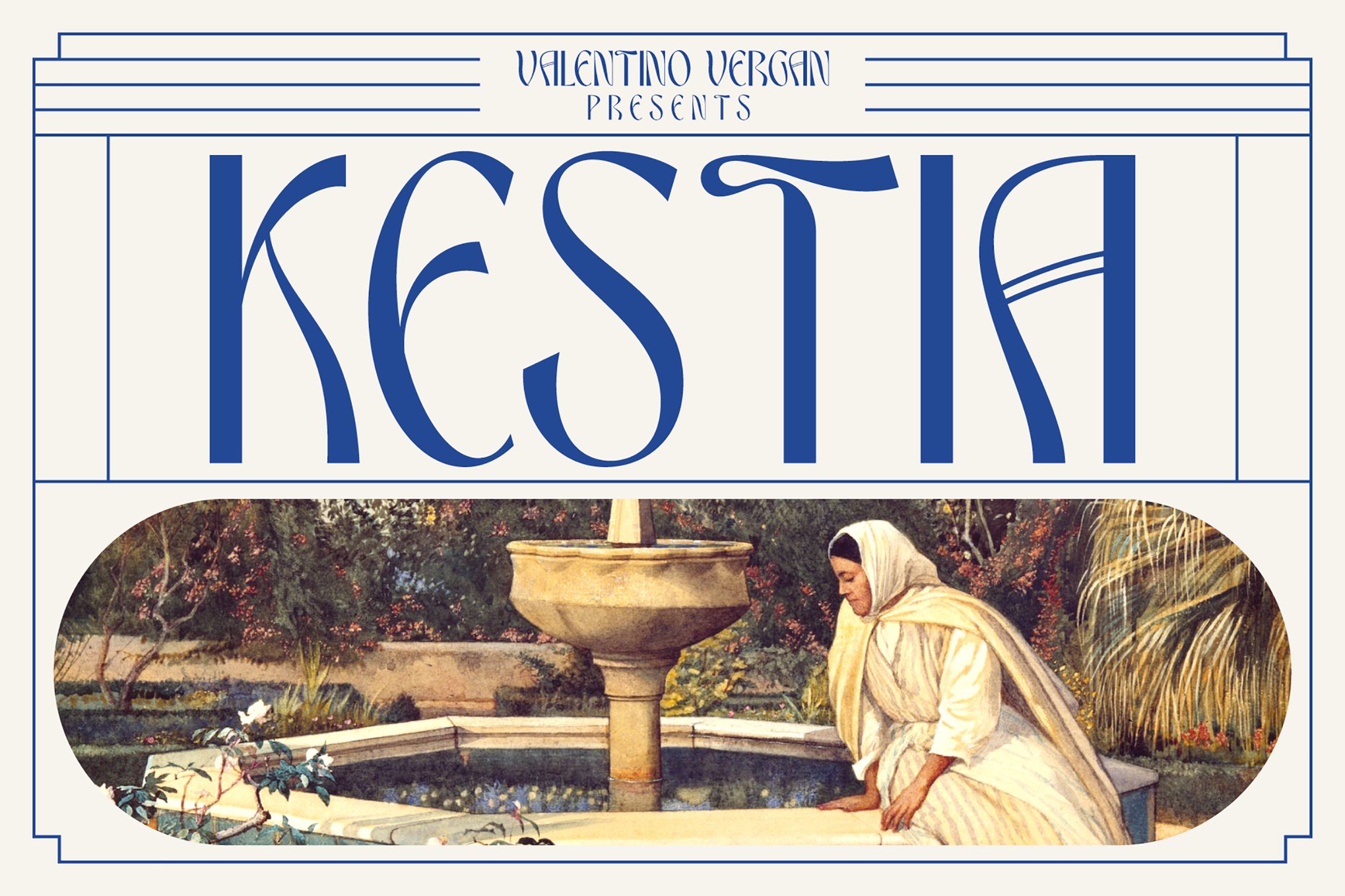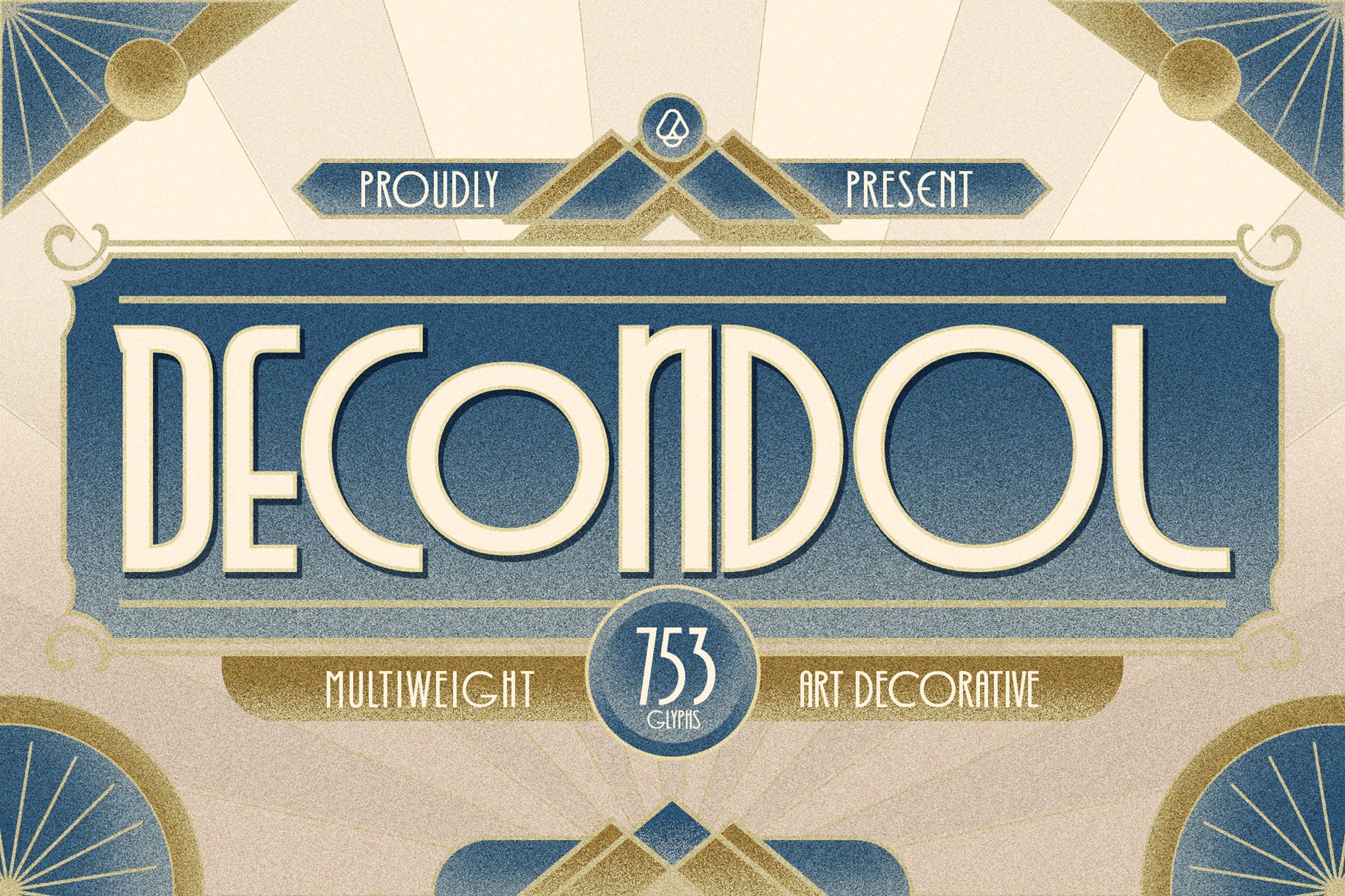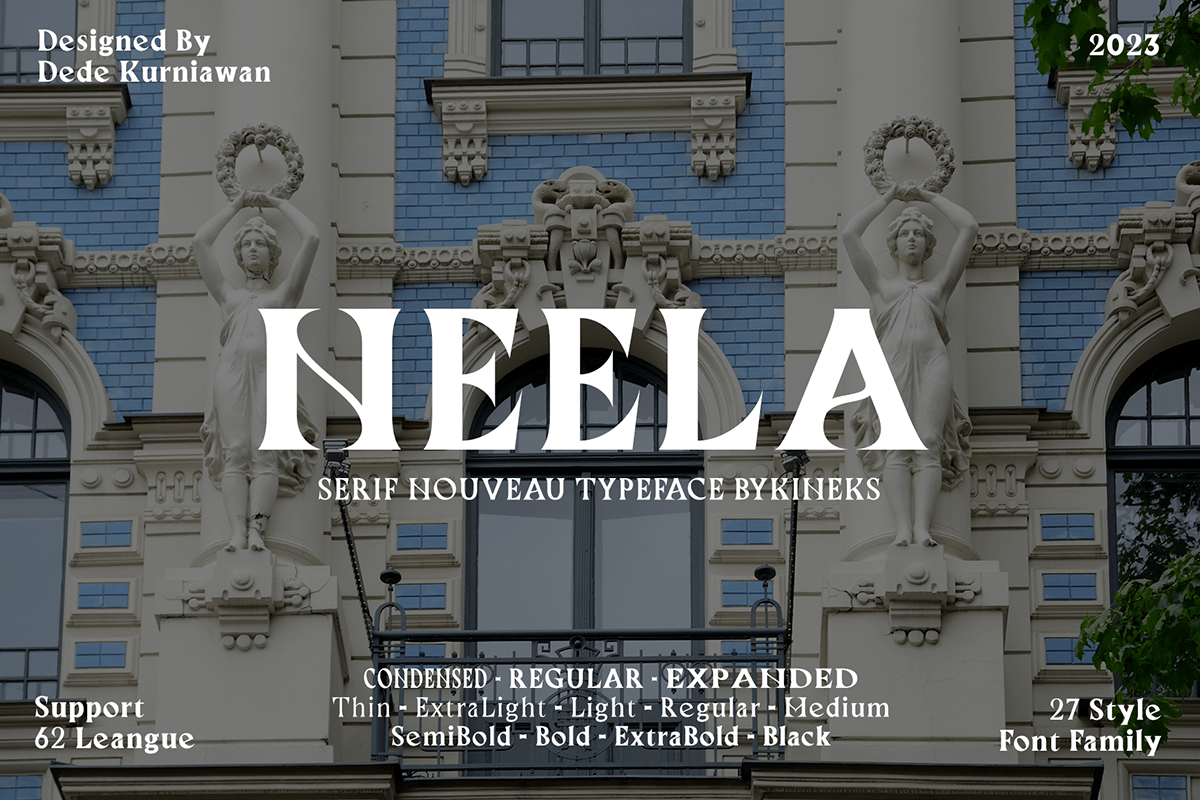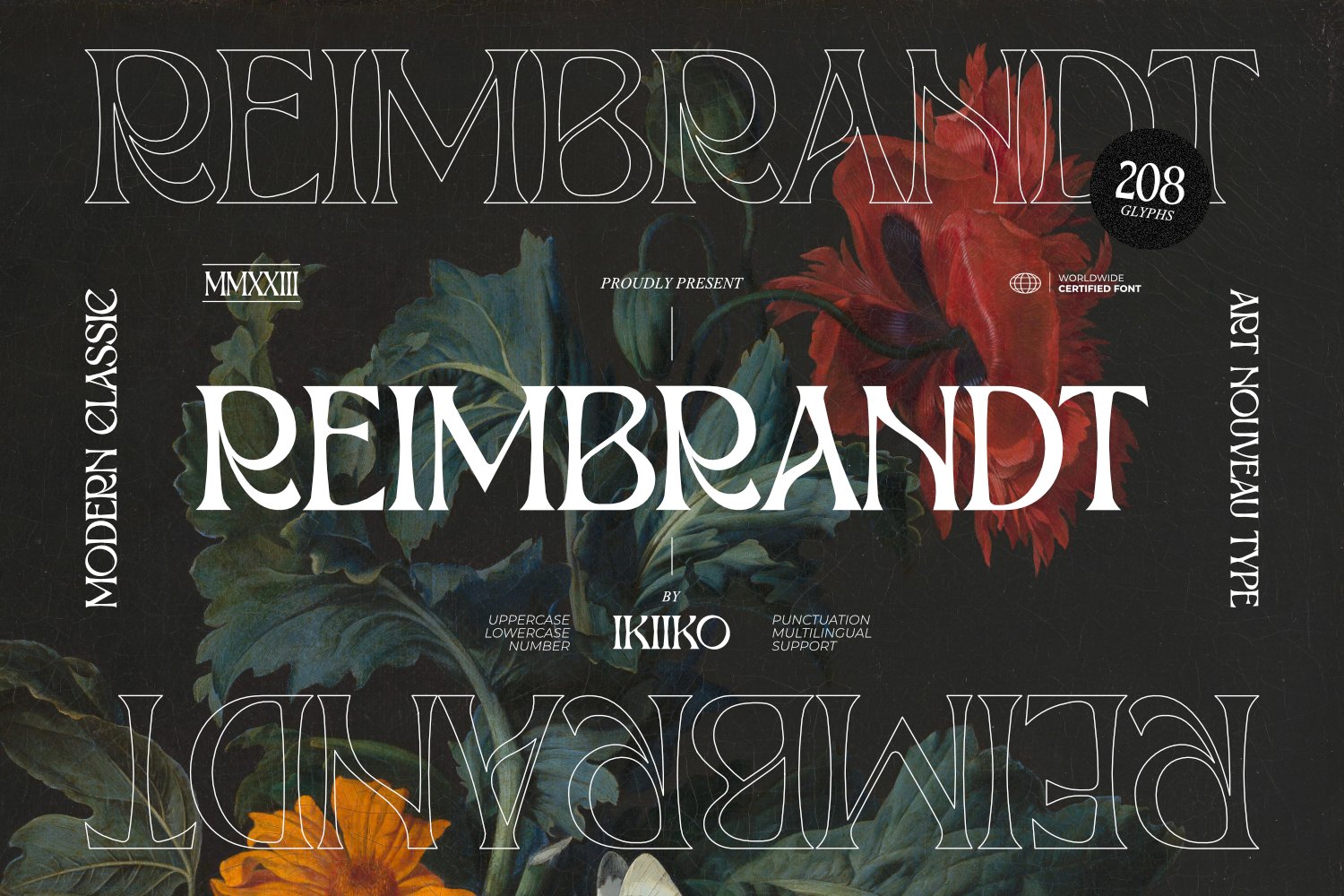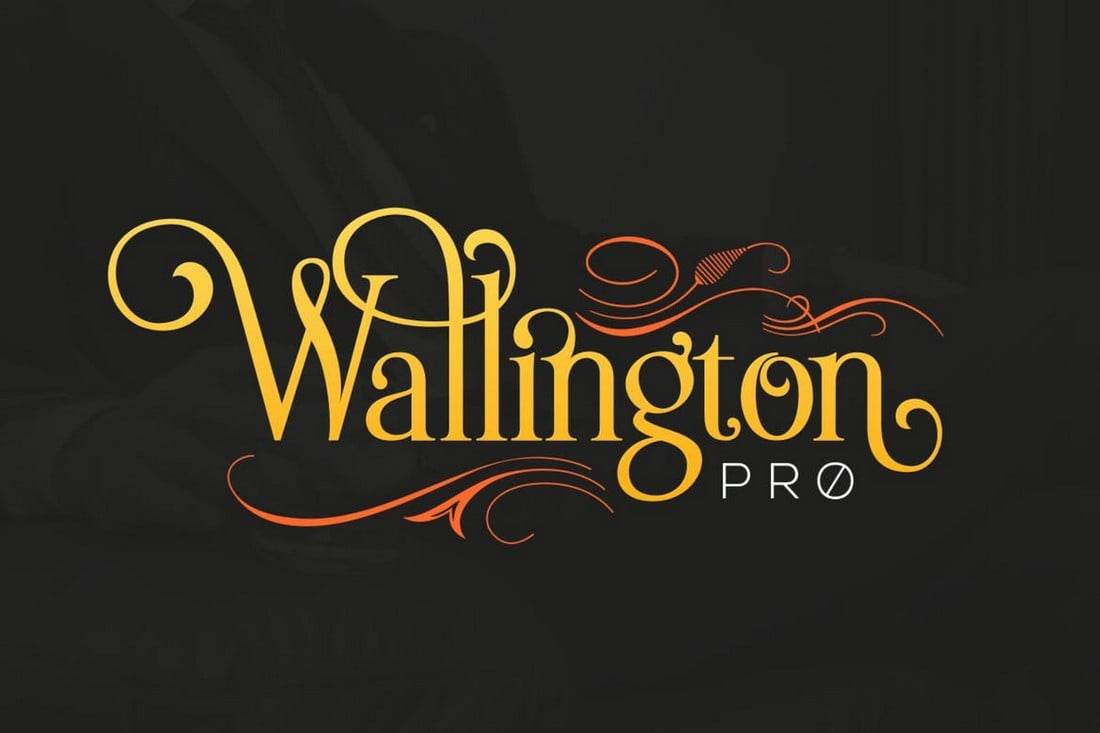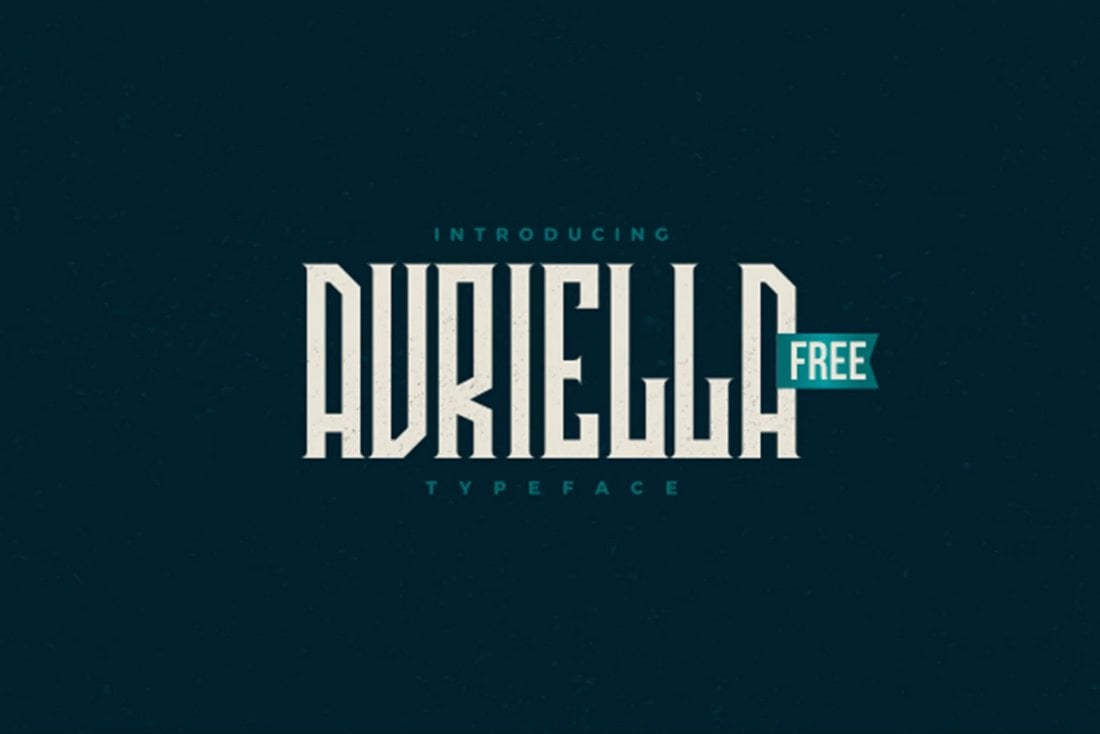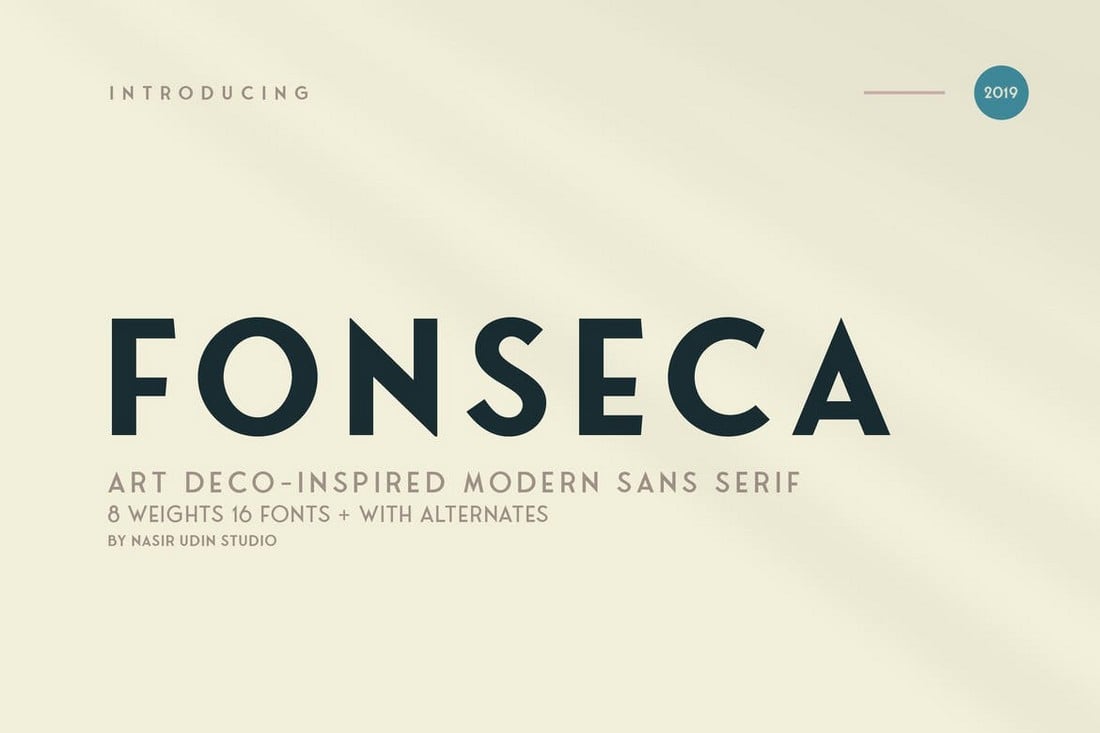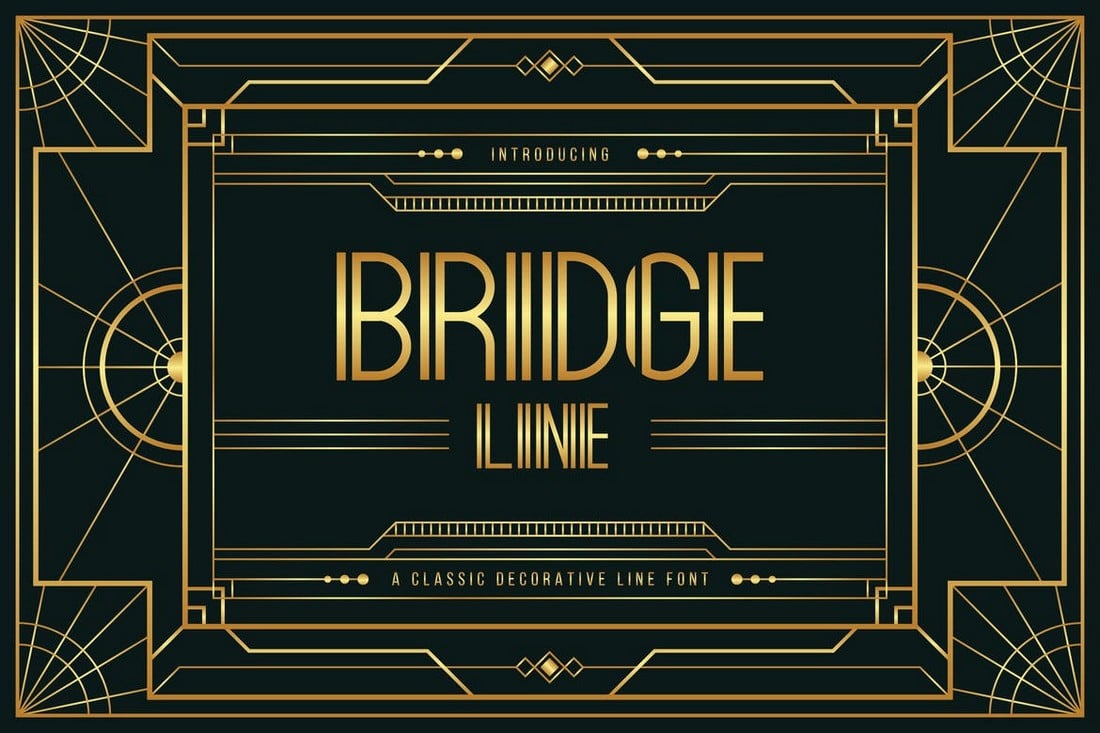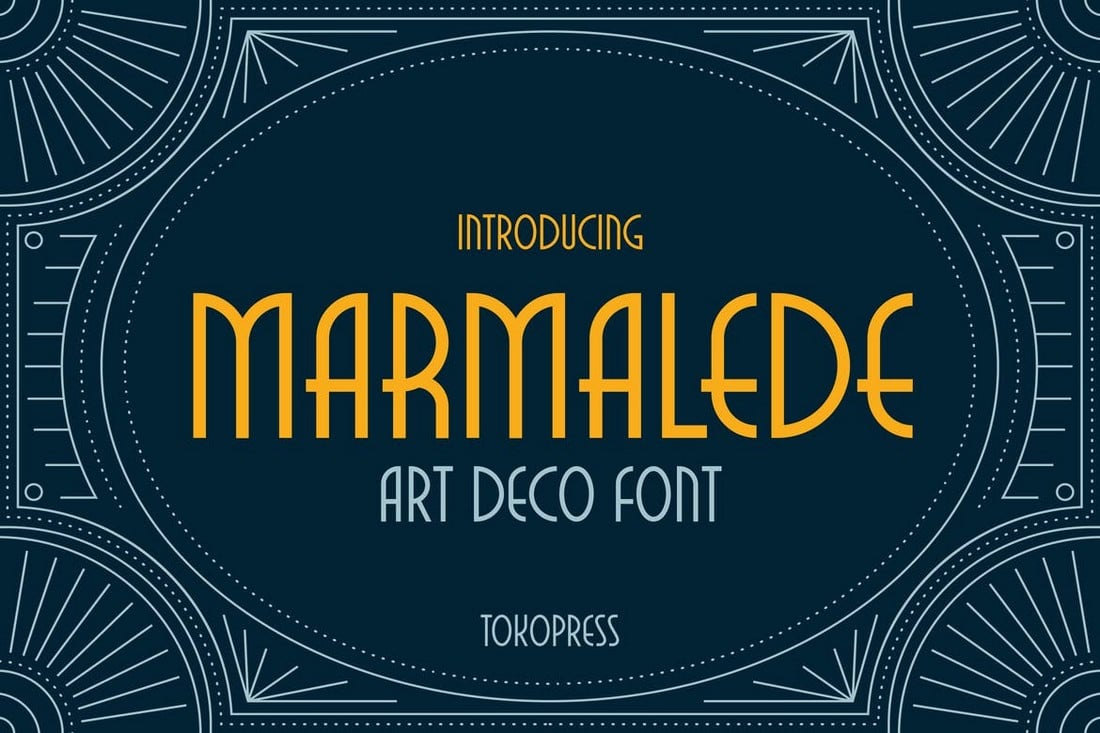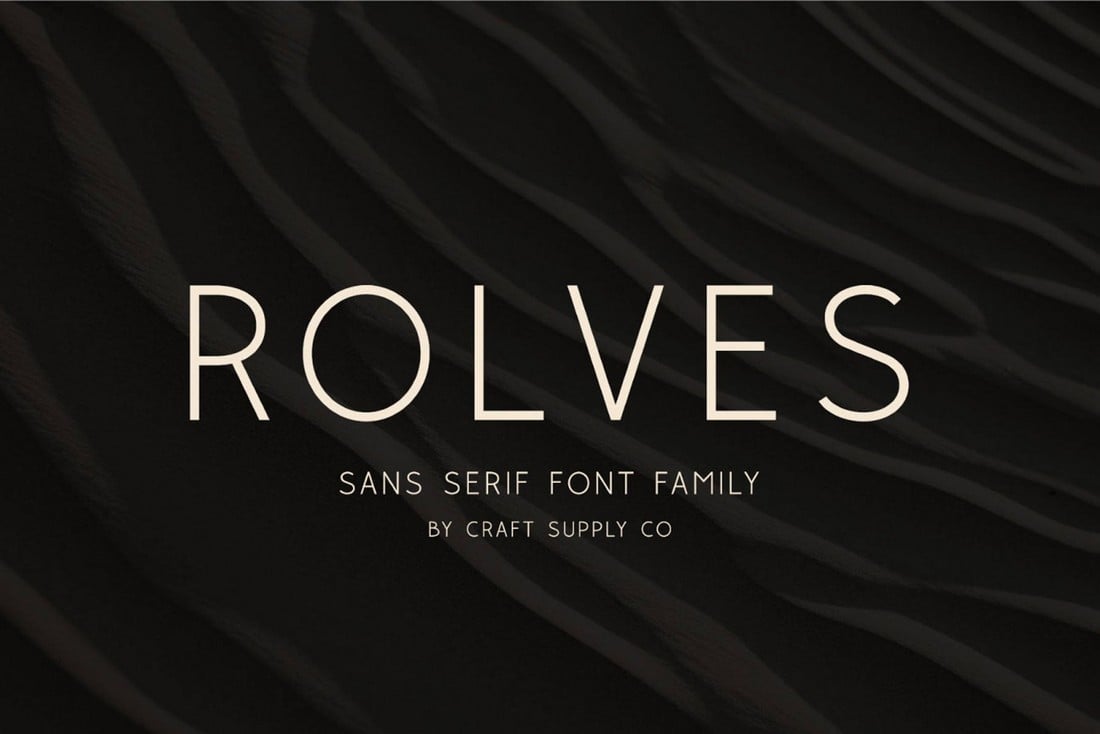
If you’re looking for a font to create a piece of timeless design, you can never go wrong with an art nouveau or art deco font.
While both art nouveau and art deco font styles come from the same 20th century period, they have two distinctive designs. Art deco is all about the clean and minimalist look while art nouveau is all about creating elegance with its long curves and lines.
These art movements are so good that they managed to survive many decades and are still celebrated among modern designers. They are especially quite popular in typography designs.
With our collection of handpicked art deco and art nouveau fonts, you can find a beautiful vintage font to craft your own Victorian-era design. Be sure to download them all.
Kestia – Art Nouveau Font
Kestia is an elegant, modern typeface inspired by early Art Nouveau design. With its creative letters, ligatures, and unique style, it’s perfect for nostalgic and retro projects like posters, logos, and wedding invitations. Available in multiple formats, Kestia includes uppercase and lowercase letters, numbers, punctuation, and multilingual symbols, enhancing your creative endeavors.
CS Forest – Art Nouveau Font
Forest is a captivating sans-serif font inspired by the elegance of Art Nouveau, featuring flowing lines and delicate curves. Perfect for elevating branding, invitations, or editorial layouts, this font adds a sophisticated and artistic charm to any project. Available in regular, italic, and reverse italic, CS Forest supports multilingual characters and includes standard punctuation.
Ornable – Ornamental Art Deco Font
Ornable is an ornamental Art Deco typeface that effortlessly blends Renaissance, Art Nouveau, Medieval, and modern influences. With its elegant lines and intricate details, it’s perfect for luxury projects, from branding to event invitations. Compatible with multiple languages and offering advanced typographic features, Ornable elevates your design with a touch of mystique and historical charm.
Decondol – Classic Art Deco Font
Decondol is a classic Art Deco font that brings a touch of vintage charm to modern designs. With five versatile weights, from light to bold, it’s perfect for anything from elegant branding to standout headlines. Its geometric shapes and smooth lines offer a sophisticated style that suits both digital and print projects, blending elegance and authority.
Neela – Serif Nouveau Font
Neela is a sophisticated Art Nouveau-inspired serif font offering 27 styles, from Thin to Black, including Condensed and Expanded widths. Its elegant design features subtle Art Nouveau touches, perfect for infusing projects with timeless charm. Supporting 65+ languages, Neela is versatile for both print and digital use, making it a valuable asset for diverse design needs.
Reimbrandt – Art Nouveau Font
Reimbrandt captures the timeless romance of the past through elegant, decorative shapes inspired by the Art Nouveau era. Ideal for vintage themes, it enhances poster layouts, packaging, book covers, and more with stylish flair. The font includes uppercase, lowercase, numbers, punctuation, and multilingual support, available in TTF and OTF formats.
Decofun – Stylish Art Deco Font
Decofun is a striking modern Art Deco font. It carefully combines a touch of timeless elegance with dynamic, creative design. Ideal for bold headlines, stylish logos and sophisticated invitations, Decofun offers over 700 characters and alternate styles, elegant ligatures and special unicode access.
Decolmax – Art Deco Font
Decolmax is an eloquent typeface inspired by the 1920s Art Deco movement, merging geometric precision with ornamental flair. Its distinctive style includes bold lines, sharp angles, and graceful curves making it perfect for branding, packaging, and headlines. This versatile font offers 835 characters and artistic features—like alternative characters, custom ligatures,and more.
Decobra – Elegant Art Deco Font
Decobra is an Art Deco typeface that possesses a unique blend of classic elegance and modern sophistication, ideal for infusing a vintage yet contemporary feel into your designs. With its distinctive two-line structure, over 800 characters, stylistic sets, ligatures, and decorative swashes, it proffers a world of creative potential.
Dechora Zone – Art Deco Font
Dechora is a fresh take on Art Deco, offering a mix of vintage allure and modern sophistication. The font’s dynamic lines give it a unique look that’s well-suited for a range of projects, from luxury branding to editorial layouts. Offering an expansive character set, multiple stylistic options, and comprehensive language coverage.
Decola – Art Deco Font
This font captures the elegance and vintage allure of the Art Deco era. Boasting a unique 2-line frame that lends sophistication, it’s great for contemporary designs creating an air of timeless luxury. Featuring 710 characters, alternative glyphs, lingatures, swashes, and multilingual support.
Lovnie – Modern Art Deco Font
Lovnie is an Art Deco-style font with a modern twist. Sleek and geometric, it adds vintage elegance to any project, from magazine layouts to restaurant branding. Versatile and stylish, it’s perfect for designs needing a touch of glamour and sophistication. Lovnie font comes in both regular and italic typefaces supporting uppercase, lowercase, numerals, punctuation, and multilingual characters.
Revalyn – Art Noveau Font
The Revalyn merges contemporary elegance with a nostalgic twist. Blending modern sophistication with elements of retro design, this font is influenced by the flowing lines and organic shapes that define Art Nouveau. Ideal for a variety of projects, it adds a touch of finesse and versatility. It comes in both regular and italic variations, supporting multilingual characters, numerals, and punctuation.
Varelle – Elegant Art Nouveau Font
Varelle is an Art Nouveau style, elegant serif font, ideal for sophisticated designs. It combines exquisite detailing with graceful lines to offer a timeless appeal. Whether utilized for luxury invitations, upscale branding, or eye-catching logos, Varelle’s adaptable design works effectively in a range of sizes.
Merivale – Art Nouveau Font
Merivale is a strikingly beautiful blend of elegance and tradition. Drawing inspiration from the Art Nouveau movement, it features flowing lines and intricate flourishes, lending a tasteful sophistication to any design. Ideal for captivating headlines and eye-catching displays, it offers versatility in usage whilst maintaining its timeless appeal.
Olyphs – Luxury Art Deco Font
Olyphs is a luxury Art Deco font inspired by the grandeur of the silver screen. Olyphs is not just a font, but a representation of timeless elegance, perfect for projects requiring a touch of vintage charm or Old Hollywood glamour. Its intricately detailed letters combine seamlessly with both print and digital mediums, making it a highly versatile tool for design enthusiasts.
Venio 3D – Classic Art Deco Font
Venio 3D is a classic Art Deco font that breathes new life into the style from the Roaring Twenties, with its sleek lines and geometric shapes. Boasting stunning 3D effects, it ensures a visually impactful experience with depth and vitality, perfect for attention-grabbing display purposes on signage, posters, or digital graphics.
Nerilla – Art Nouveau Font
Nerilla is an Art Nouveau-style serif font that embodies beauty and elegance. Drawing inspiration from organic forms and fine details of the Art Nouveau movement, it provides a sophisticated and timeless charm. Devised with delicate serifs and complex details, this font showcases refinement.
Lucilo – Beautiful Art Noveau Font
Lucilo is an Art Noveau-inspired font with the grace and intricacy of this timeless style. Displaying elegance and beauty, it instantly adds a refined aesthetic to any design project, from wedding invites and luxury logos to sophisticated editorial layouts. Lucilo Font comes in both regular and italic, supporting uppercase and lowercase characters, numerals, punctuation, and multilingual characters.
Bourgie Deco – Art Deco Font
Explore the charm of the early 20th century with Bourgie Deco – a uniquely modern Art Deco font created by Rasiorise Studio. Drawing inspiration from the architecture and visual styles of the 1910s, this font is a fusion of uppercase and lowercase characters which exudes a bold and unique contemporary appeal.
Golften – Art Noveau Serif
Golften is an elegant and harmonious font, perfect for anyone seeking a refined and graceful design. Its versatile beauty works for a range of projects, whether wedding invitations or artistic posters. Inspired by the Art Nouveau movement, Golften captures the timeless appeal of this style, adding a captivating visual experience to your work.
Wallington Pro – Elegant Art Nouveau Font
Wallington Pro is a stylish and elegant font that checks all the boxes of a perfect art nouveau font. It has a bold serif lettering design, long curvy lines, and an overall bold look that can’t be matched by any other type of font. Its design is inspired by the late 19th-century Old English culture. And it comes with 10 stylistic sets and hundreds of ligatures and glyphs.
Ager – Art Nouveau Logo Font
When it comes to designing logos for luxury, lifestyle, and fashion brands, you can’t go wrong with an art nouveau font. This font in particular has the perfect letter design for crafting logos for high-end brands. It includes uppercase and lowercase letters as well.
Rosaline – Art Deco Display Font
Rosaline is a beautiful outline font with a classic art deco-inspired design. This font features an iconic and elegant look that will make your professional and branding designs look out of this world. It looks amazing when designed with a black and gold color scheme.
Avoner – Elegant Art Deco Fonts
Avoner is a bold art deco font with thick letters. This font is excellent for designing big titles and headings for posters, flyers, and websites. The design of this font is inspired by the typography used in the 1930s.
Modecque – Classic Art Deco Fonts
If you’re a fan of classic Victorian-era art deco designs, this font is perfect for your projects. It features a very unique design with creative decorative elements. The font will surely make your designs stand out.
Avriella – Free Art Deco Font
This free art deco font comes with a clean letter design. It also features condensed characters that make it most suitable for crafting typography for posters and social media posts. It’s free for personal use.
Voltdeco – Stylish Art Deco Font
At first glance, this font looks quite incredible for designing business cards, logos, labels, and other branding designs. It has a beautiful and narrow letter design that will fit in nicely with both modern and vintage-themed designs. It includes all-caps letters.
Peachy Fantasy – Art Nouveau Font
This is a creative art nouveau font with a psychedelic look and feel. This font also gives off a subtle fantasy vibe, which makes it suitable for book covers, magazines, posters, and so much more.
Cartinz – Modern Art Deco Font
Cartinz is a unique art deco font with a modern design. This font will allow you to use art deco typography in a different way than traditional designs. It’s perfect for modern branding designs, promo materials, and even product labels.
Naroline – Creative Art Nouveau Font
A beautiful art nouveau font with a creative letter design. This font features a mix of both modern and classic design elements to give each letter a unique feel. It has uppercase and lowercase letters too.
Lost Cord – Free Art Deco Font
Looking for a serif font with an art deco design? Then this free font is for you. It comes with a decorative letter design with lots of glyphs and alternate characters. The font is free to use with personal projects.
Decohead – Minimal Art Deco Font
Similar to art nouveau fonts, art deco fonts share the same elegant look and feel. Except art deco is all about creating a clean look while maintaining elegance. This font is a great example of an art deco font. It comes in 3 different font weights with the same stylish letter design.
Fonseca – Art Deco Font Family
Fonseca is a family of beautiful art deco fonts. It includes eight different font weights and oblique versions of each weight, making it a total of 16 fonts. Every font in this pack shares the same art deco font style. You can actually use it for everything from designing titles to headings and even paragraphs.
Bagerich – Stylish Art Nouveau Font
Bagerich is a classy font that features a stylish design that you’d normally see in high-end brandings such as Gucci or Victoria’s Secret. This font comes with art nouveau-style letters along with lots of alternate characters, ligatures, and stylistic characters to help you craft amazing logos, labels, and more.
Onamura – Experimental Art Nouveau Font
Onamura is a unique experimental font that’s been designed by mixing a few different art styles. It shares different elements from the art nouveau movement as well as art from the Gothic era. This gives a unique look to each letter in this font. And it’s perfect for modern designs that instantly grab attention.
Catallina – Free Art Deco Font
This clean and minimal art deco font is actually free to use with your personal and commercial projects. And it has a set of unique characters with the same elegance of a premium font.
Rousseau Deco – Free Display Font
Another free art deco font with a professional letter design. It includes stylistic alternates, multilingual support, and a stylish retro design. Everything is offered to you completely free of charge.
AVENIDA – Stylish Art Deco Font
Avenida is one of the most stylish fonts on our list. While it’s inspired by the art deco theme, it has additional stylistic elements to give a unique look to each letter. This makes this font a great choice for crafting logos, product labels, and various other branding designs. It includes uppercase and lowercase letters.
Fontaine – Narrow Art Deco Font
A tall and narrow font with only all-caps letters? Then it must be a title font. Fontaine is a bold art deco font that’s been made just for crafting titles, headings, and text that attracts attention. The font includes a set of alternate characters that you can toggle with the capslock as well.
Garine – Art Deco Display Fonts Trio
This font mixes modern typography designs with art deco style to create a very beautiful and feminine font. It’s actually perfect for magazine cover design, branding design for feminine brands such as cosmetics, and even luxury fashion brands.
Murray – Art Deco Display Font
Murray is another art deco font that comes with a simple letter design with a subtle nod to the 20th century. The font looks quite elegant on greeting cards and wedding invitation designs. It comes with both uppercase and lowercase letters.
Gatsby – Creative ArtDeco Fonts
The novel The Great Gatsby by F. Scott Fitzgerald has some of the best descriptions of the art deco movement. This was later visualized in the 2013 movie based on the novel. This font design is inspired by that same work of art. And it comes in 5 different styles, including grunge, inline, and outline versions.
Guyon Gazebo – Free Art Nouveau Font
This is a unique font that features both modern and art nouveau-style design elements. The font is especially suitable for fashion branding, logo design, and label designs. You can use it for free with your personal projects.
Macropolo – Free Art Deco Font
A free art deco font with a classic vintage letter design. It’s an all-caps font that features extensive multilingual support. And it’s free to use with all your personal projects and designs.
Charlie – Modern Art Deco Font
This font features a modern take on the art deco font design and it does a pretty good job at it. The font features elegant and clean letters that will look great on any modern branding design. It’s suitable for everything from product labels to T-shirt designs, logos, and much more.
Elodie – Hand Sketched Art Nouveau Font
This font is definitely not the usual art nouveau font you’re used to seeing. It actually combines several design styles to create a unique set of letters. The font is handcrafted with a brush pen, making the letters and the font completely unique. While it breaks away from the traditional art nouveau style, the font is a great choice for crafting designs with a personality.
Bridge Line – Elegant Art Deco Font
Bridge Line is an elegant art deco font that features the same classic design from vintage posters and signage. This font includes both uppercase and lowercase letters to help you craft titles as well as smaller paragraphs in style.
Marmalede – Classic Art Deco font
Marmalede is another classic art deco font you can use for creative and branding designs. It comes with a set of letters featuring clean-cut corners and with a high-end look and feel. It comes in regular and italic styles as well.
Billionaire – Art Deco Display Font
A collection of vintage display fonts featuring art deco-style letter designs. This pack includes 6 fonts featuring grunge style typefaces. It includes 3 weights ranging from regular to thin and medium. Each font is suitable for various types of design projects.
Grodna – Free Art Nouveau Font
Grodna is a free art nouveau font that comes with a unique set of letters. The narrow lettering style makes this font perfect for crafting titles for posters and labels. The font takes inspiration from the posters seen in the 1900s in Oradea.
Rolves – Free Art Deco Font
This clean and stylish art deco font is also free to use with your personal projects. Rolves is a high-quality font that will look perfect on business cards, logos, and other branding designs.
Ironclad – Bold Art Deco Font
If you’re looking for a bold and creative art deco font to craft an attractive title for a movie poster or a book cover, this font is perfect for you. It comes in 3 font weights with a set of clean letter designs.
Brigmore – Unique Art Deco Font
This font will make your designs immediately noticeable no matter where you use it. There’s a certain classy and rugged look to this font that separates it from the rest. The all-caps font comes in 3 font weights and two distinctive styles as well.
Art Deco Monogram Font
Art deco typography is a common choice in monogram logo and signage designs. This font is made specifically for that type of design work. It features letters that you can easily combine together to create monograms. The font is available in 3 weights with uppercase and lowercase letters.
Avenida – Art Deco Font
Taking an art deco look, Avendia is all about classic, elegance, and high-class feel all over it. Suit perfectly for high-end market audiences, poster, movie title, classic restaurant/ cafe menu, magazine, youtube covers, youtube thumbnails, social media page covers and so on.
Indentia – Art Deco Font
Indentia is a very interesting font, which has been inspired by Art Deco art. It is formed from very careful lines with stylistic set and ligature features. Indentia has 200+ glyphs consisting of two styles: Indentia Regular and Indentia Black.Suitable for any graphic design projects, prints, logos, posters, t-shirts, packaging and applicable for some types of graphic design. Indentia is compatible with any software without any pain.
Agendra- Swirly Serif Font
Agendra is modeled after the serif typeface but brings a little personality to the table with deeply curved edges, yet clear and distinctive line work that keeps readability completely intact. One of the gold standards in modern art deco fonts.
Haarlem- Decorative Serif Font
Haarlem is an exquisite font with an all-caps design. With a beautiful combination of vertical and horizontal lines, and the availability of both italic and regular styles, and alternate characters, the classic vintage font is a highly adaptable powerhouse that can be applied to project of many shapes and sizes.
Caylee- Art Deco Script Font
Caylee is a script font with an expansive typeface ready for any occasion. Designed around a fast hand sweep style, the script is a trusted companion for your art deco project needs. Able to stand out on almost any backdrop, with pristine readability, and a luscious aesthetic.